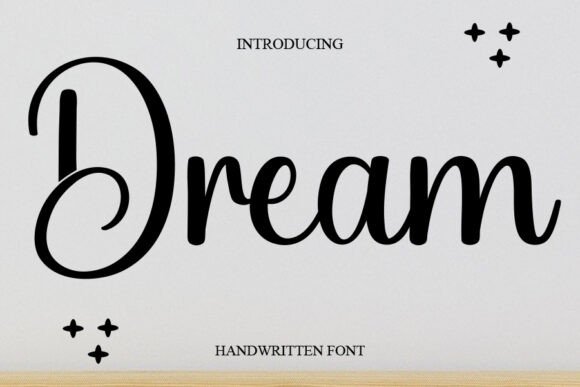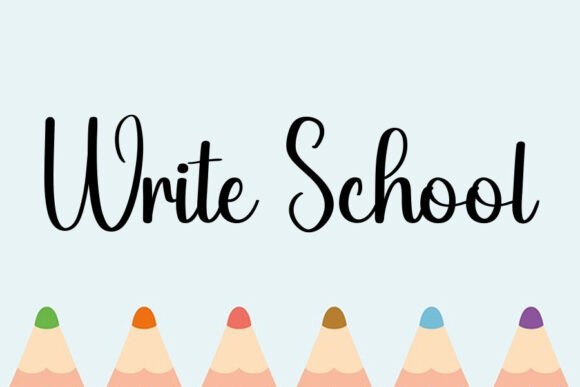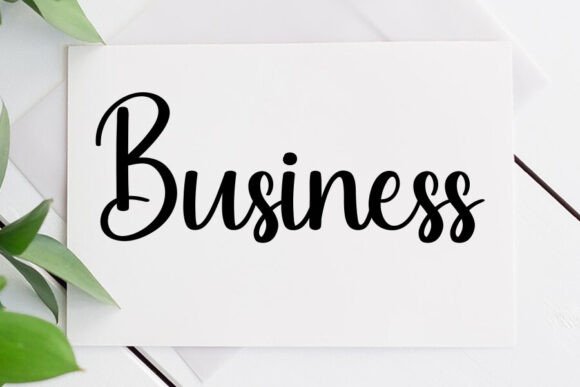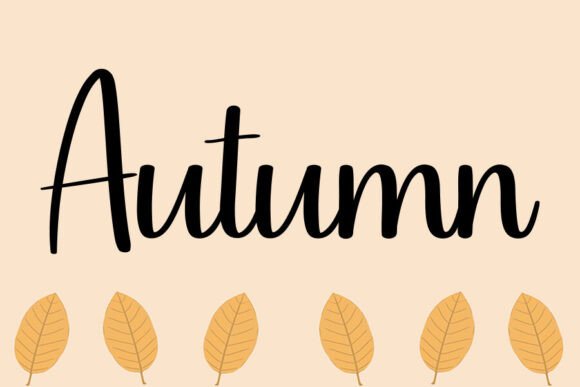
Dream Font
About the Dream Font
Add a touch of class to your work with the Dream Font, a truly exceptional typeface. Dream is a sweet and cursive handwritten font. This gentle font will look gorgeous on a variety of design ideas. It will add a joyful and romantic touch to each of your projects! Perfectly fit for branding, logo, wedding things, greeting cards, fashion, lookbook, marketing promotion, and any time you want your design to look fancy and elegant but still casual.
Dream Font’s delicate, cursive style excels in applications requiring a touch of romantic whimsy. It’s ideal for short headlines, logos, wedding invitations, and social media graphics where its elegance shines. However, its low x-height and ornate details make it unsuitable for body text or UI elements; readability suffers in extended use.
Consider pairing Dream Font with a clean sans-serif like Lato for a balanced contrast, or a classic serif like Garamond for a more traditional feel. For a modern twist, a geometric sans-serif such as Montserrat could provide a striking juxtaposition. The overall personality of Dream Font is undeniably romantic and playful, but retains a sophisticated air.
Dream Font Example